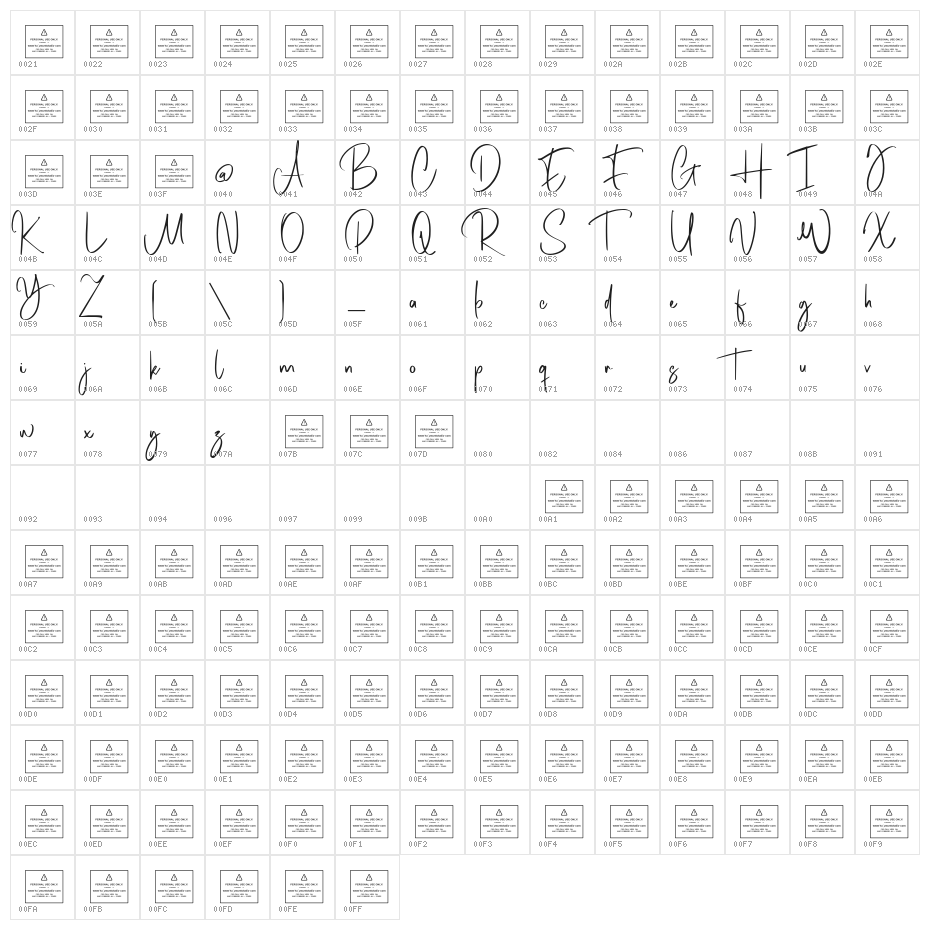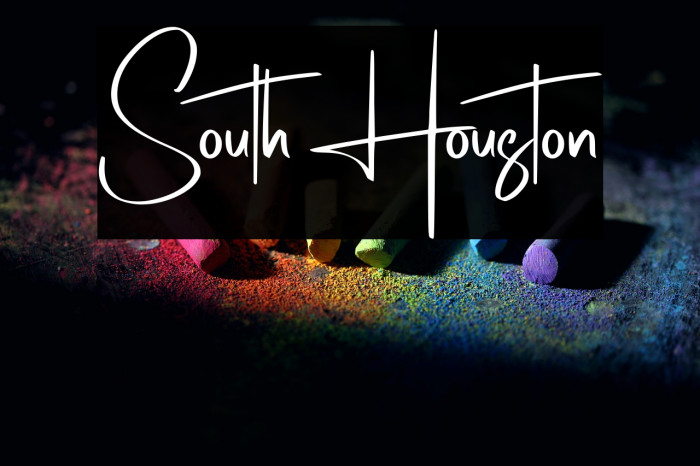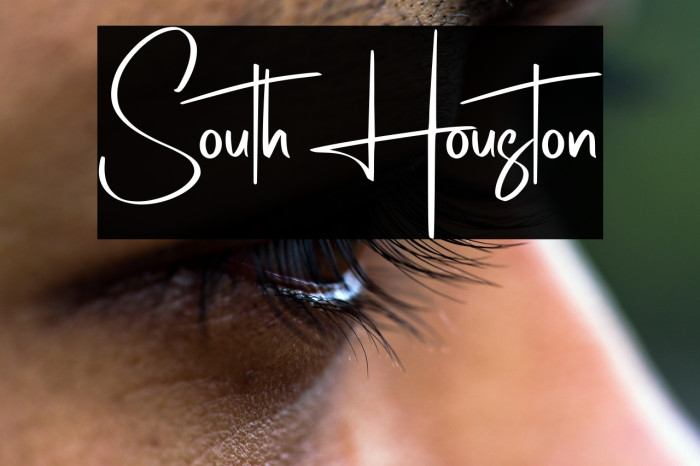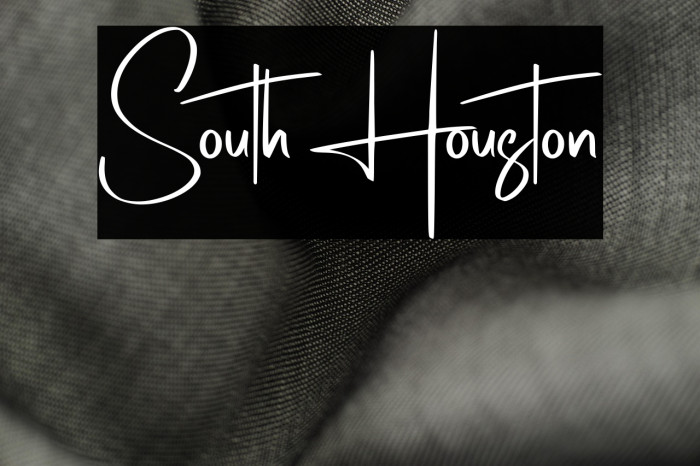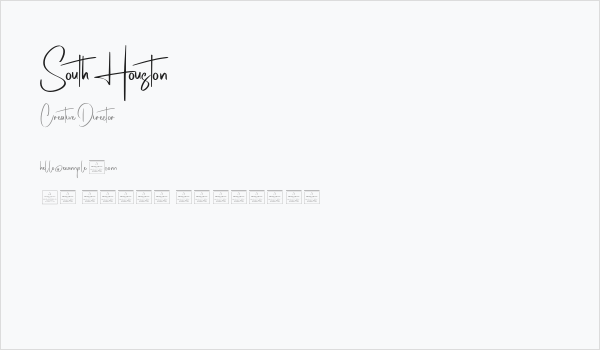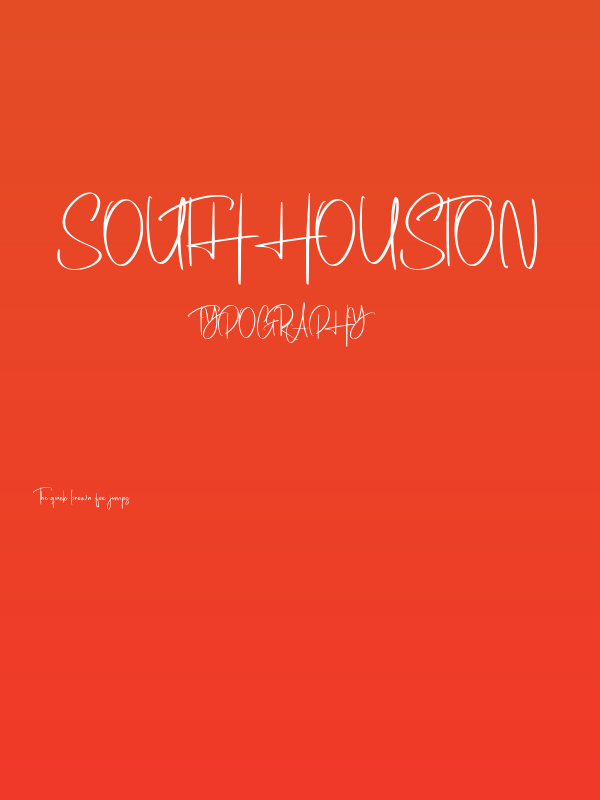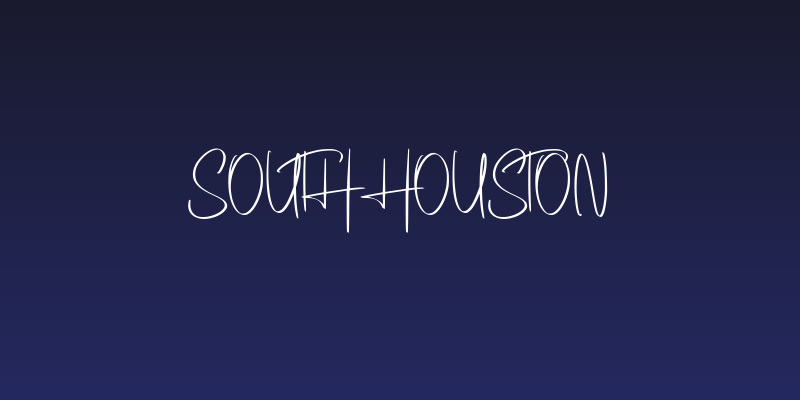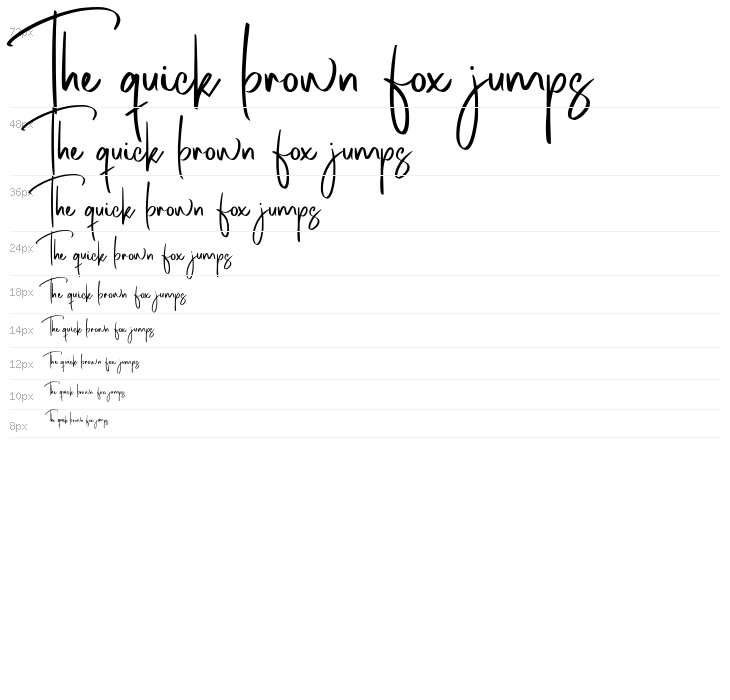
South Houston Font
South Houston Description
This font exhibits a dynamic and expressive handwritten style, characterized by its fluid and interconnected strokes. The uppercase letters are tall and slightly narrow, with a playful yet elegant flair. The lowercase letters maintain a consistent flow, enhancing the font's cohesive appearance. The numerals and special characters follow the same lively style, making them suitable for creative and artistic projects. The font's overall design is both modern and whimsical, offering a unique touch to any text it is applied to.
| Overall Style | Modern, Whimsical |
| Proposed Projects | Ideal for greeting cards, invitations, personal branding, and artistic posters. |